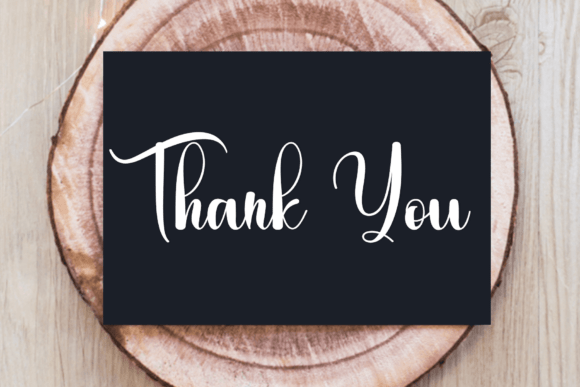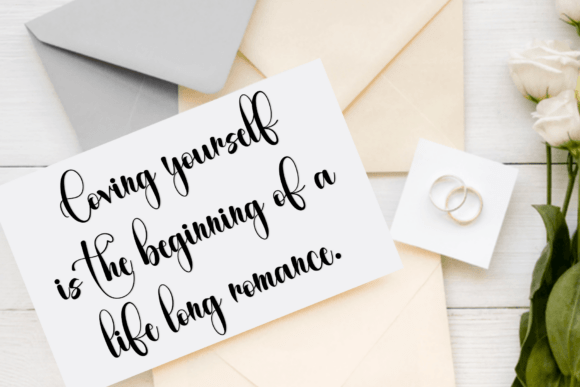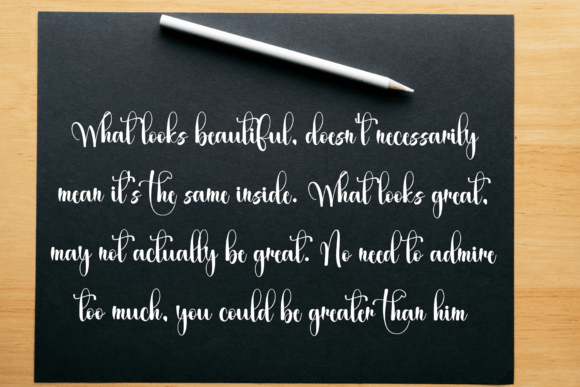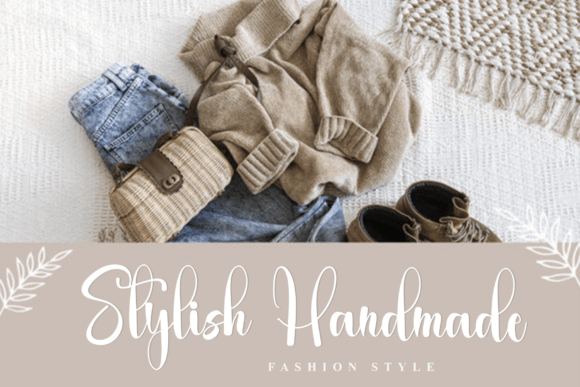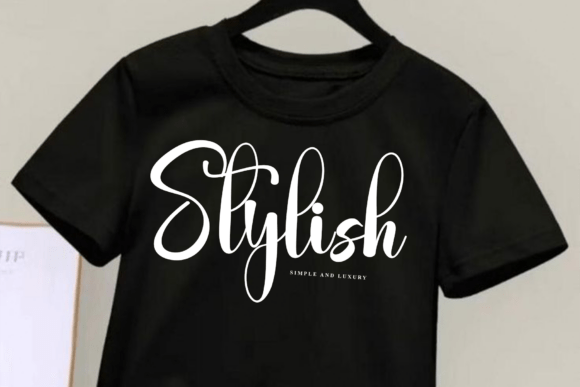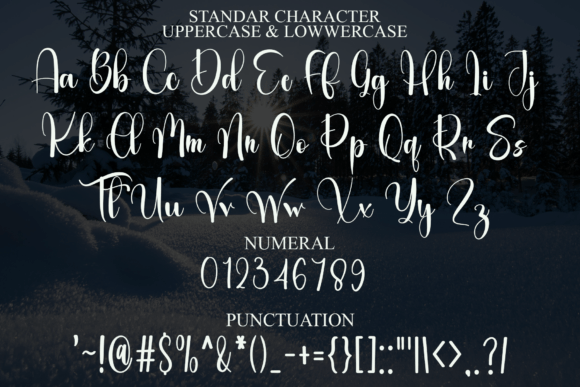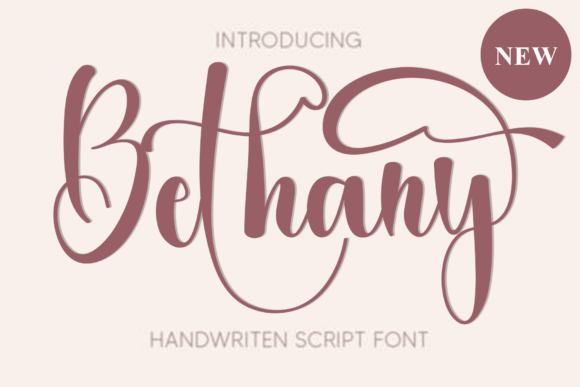
The Magic of Bethany Font: A Festive Holiday Companion
It’s that time of the year again – the season of sparkle, shine, and endless creativity! As designers, crafters, and creative hobbyists, we know how crucial it is to find the perfect font to capture the essence of the holidays. I still remember the year I spent hours scouring for the ideal typeface for a client’s Christmas card project. The brief was simple: create something merry, bright, and utterly enchanting. That’s when I stumbled upon Bethany Font, and let me tell you, it was love at first sight! ✨
An Honest Review of Bethany Font
So, what makes Bethany Font so special? Let’s dive into the good stuff and, of course, a few minor quirks. 😉
- ✨ Festive and merry vibe that’s perfect for holiday projects
- ✅ Decorative elements and whimsical flair that add a touch of enchantment
- 🎉 PUA encoded for easy access to amazing glyphs and ligatures
- 📚 Versatile and suitable for various design applications, from greeting cards to gift tags
- 🤔 May not be the best fit for formal or corporate designs (but who needs formal during the holidays, right? 😜)
- ⚠️ Some users might find the font a tad too ornate for certain projects
The Story Behind Bethany Font
Legend has it that Bethany Font was created by a designer who wanted to capture the magic of her childhood holidays. With a dash of nostalgia and a pinch of creativity, she crafted a typeface that would bring joy to designers and crafters alike. And so, Bethany Font was born – a festive and merry companion for all your holiday design needs.
A: PUA (Private Use Area) encoding allows font users to access a wide range of glyphs and ligatures, making it easier to create unique and creative designs.
Q: Is Bethany Font suitable for digital and print designs?
A: Absolutely! Bethany Font is versatile and can be used for both digital and print designs, from social media graphics to greeting cards and gift tags.